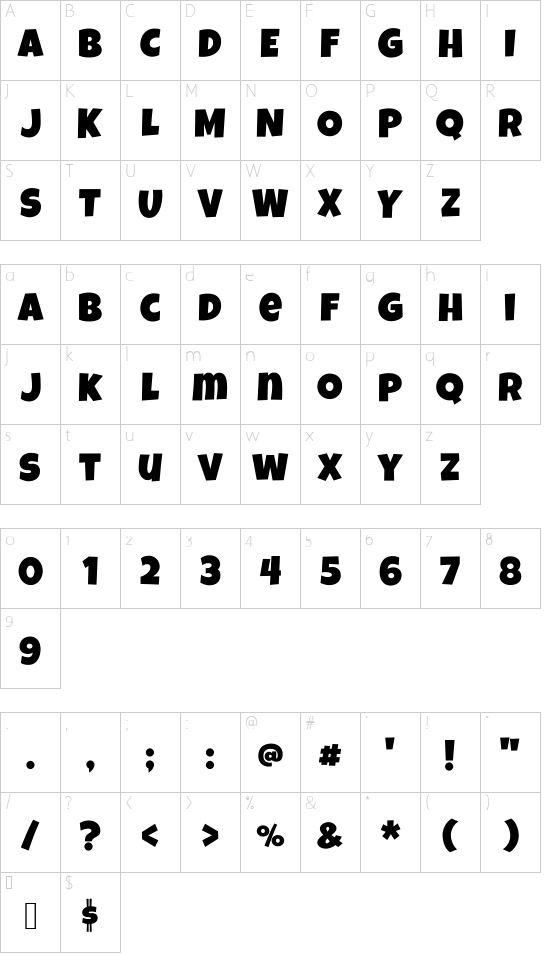
Luckiest Guy Font
Luckiest guy font. Download 1840 Comic Cartoon Fonts 1001 Free Fonts offers the best selection of Comic Cartoon Fonts for Windows and Macintosh. Luckiest Guy Font Designed by Astigmatic (independent digital foundry by Brian J Bonislawsky),. LUCKIEST GUY Font for the Letters Includes (310 total Signs) 2 Alpha/Number Sets (choose 2 colors from Black, Red, Yellow, Blue, Navy, Hot Pink, Turquoise) in our Standard Font Please put color choices in the notes section when checking out An Alpha/Number Set includes the following 4 of Each A E I L N O R S T.
Luckiest Guy is a friendly heavyweight sans serif typeface inspired by 1950s advertisements with custom hand lettering. Thanks for this article I was looking for a font for a travel site to match with the Luckiest Guy Font (which I use for headings) Thanks to this article, I found Josefin Sans which was the perfect match for my needs Reply HTGO April 05, 19 Hi Elliott, we’re so glad to hear this helped you find it!. This 235" Luckiest Guy font lawn letter alphabet containing 87 characters including letters and symbols is the perfect way to get your message across in a BIG way!.
Our Luckiest Guy Pro was inspired by handlettering by vintage 1950’s advertisements The uberbold unicase letterforms exude charm and lightheartedness, while the SmallCaps and extensive figure sets expand the range of usability and appeal Opentype features include Small Cap Full set of Inferiors and Superiors for limitless fractions. The "Text Generator" section features simple tools that let you create graphics with fonts of different styles as well as various text effects;. A variety of options are available including font size, font style, lowercase or uppercase letters, grid shape, word placement, and more.
Font Meme is a fonts & typography resource The "Fonts in Use" section features posts about fonts used in logos, films, TV shows, video games, books and more;. Attention Yard Card business owners this set is a great companion piece to add to your existing lawn letter sets Please note, the sparkle & glitter options are not real. Luckiest Male can be a friendly heavyweight sansserif font encouraged by custom made hand lettered 1950’s commercials Big as well as in charge, this offbeat, lovably legible font lends alone to all sorts of employs Get Luckiest Male for just a spin and let him pack a punch for both equally your internet site as well as your layout function.
Free Online Whiteboard and Collaboration A Free web whiteboard loaded with great functionalities like online presentation, setup customize background, different pen sizes, millions of colors, adding text with beautiful fonts, simple Do and Undo functions, eraser, add various shapes, add customize images and finally save your work as an image or whiteboard itself which can be uploaded later. The font Luckiest Guy Regular is also perfect for branding projects, Homeware Designs, Product packaging – or simply as a stylish text overlay to any background image Check also these alternatives Luckiest Guy Regular. En tout cas je me suis bien branler et joui hummmmm 5 years ago Reply.
Superbe partouse je ne sais pas comment II font pour trouvé autant de filles 10 months ago would love to see her fuck the guy 2 years ago Reply P profshooter What a dream all. How to Add Font Family to Text How to Add Bold to Text How to Edit Text How to Add Bakground Color, Fontsize, Color How to Add Border to Text How to use Color How to use Exposures How to use Blur How to use Gamma How to use Sharpness How to use Image Effects How to use Shapes. Our Luckiest Guy Pro was inspired by handlettering by vintage 1950’s advertisements The uberbold unicase letterforms exude charm and lightheartedness, while the SmallCaps and extensive figure sets expand the range of usability and appeal Opentype features include SmallCaps Full set of Inferiors and Superiors for limitless fractions.
Searching for fonts that look like Luckiest Guy Pro?. Luckiest Guy is a friendly heavyweight sansserif font inspired by custom hand lettered 1950's advertisements Large and in charge, this offbeat, lovably legible font lends itself to all sorts of uses Take Luckiest Guy for a spin and let him pack a punch for both your website and your design work. Luckiest Guy is a friendly heavyweight sansserif font inspired by custom hand lettered 1950's advertisements Large and in charge, this offbeat, lovably legible font lends itself to all sorts of uses Take Luckiest Guy for a spin and let him pack a punch for both your website and your design work.